Script fonts for logo design can change the mood of a brand before color, packaging, or photography even enters the picture. That is why I always look at script typefaces with a bit of caution. Some look beautiful in preview images but become messy once you place them inside a real logo, label, business card, or website header.
When I browse script fonts for logo projects, I usually pay attention to a few things first: how readable the letterforms are, how much personality the swashes add, whether the spacing feels controlled, and whether the font can survive outside a polished preview mockup.
A good script font should feel expressive, but not fragile. It should bring warmth, movement, and identity to a brand mark without forcing every layout around it.
Below are 36 elegant script fonts for logo brand identity design in 2026, with notes on visual personality, branding potential, readability, and where each one makes the most sense.
- Best luxury logo option: Bethalora Font
- Best coordinated duo: Pablo Duo Font
- Best retro option: Singtton Vintage Font
- Best bold sign-painting option: Floating Script Font
- Best monogram option: Sylvaris Split Monogram Font
How I Picked These
I compared these logo fonts by wordmark readability, spacing, stroke weight, small-size performance, alternate and ligature usefulness, one-color flexibility, pairing potential, and how well each style can move from an attractive preview into business cards, packaging, labels, signage, websites, social avatars, and other real brand applications.
1. Metron Font
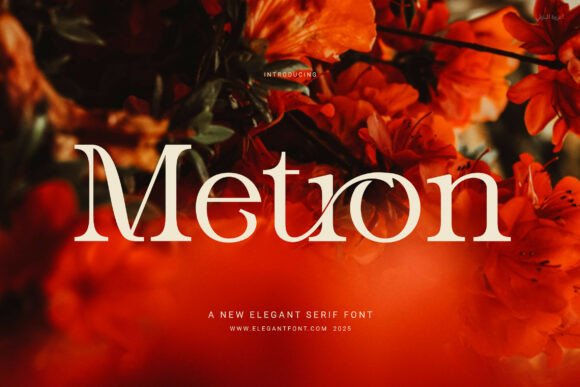
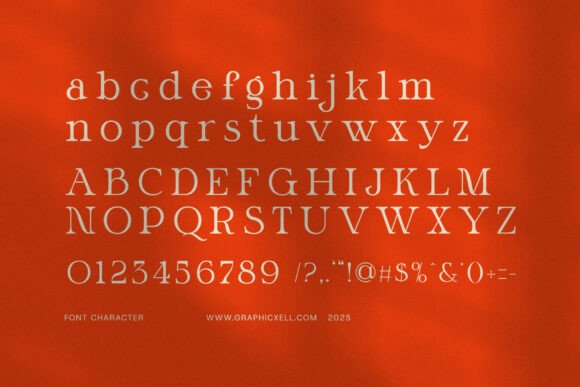
Metron is technically more of a refined serif than a script font, but I understand why it appears in a logo-focused collection. Sometimes a brand identity needs a calm, structured typeface next to a flowing script, and Metron has that composed editorial quality.
Visually, the letterforms feel measured and polished. The contrast is present without becoming too dramatic, and the counters stay open enough for packaging, labels, and masthead-style layouts. I like fonts like this when a logo needs elegance but not too much decoration.
From a branding perspective, Metron could anchor fashion labels, boutique packaging, editorial brands, or premium product identities. It also pairs naturally with more expressive script fonts because it gives the layout a stable typographic base.
My only caution is that Metron should not be treated like a romantic script. Its strength is structure, not handwritten softness. Use it when the brand needs refinement, balance, and quiet authority.
2. Sylvaris Split Monogram Font
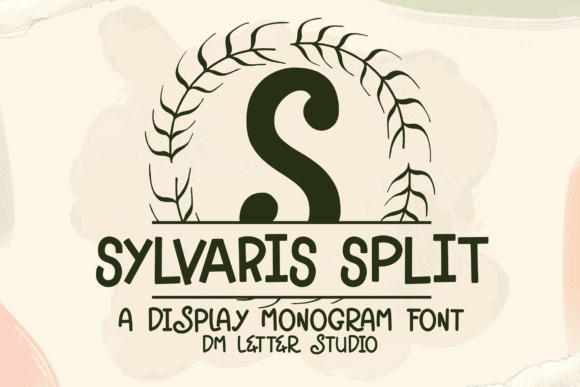
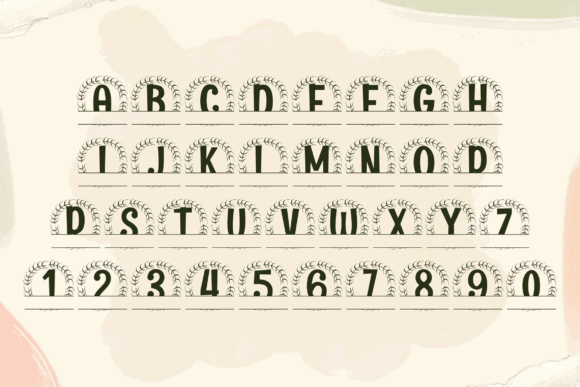
Sylvaris Split Monogram has a decorative monogram personality with a clear personalization angle. The split-letter structure is useful for names, initials, dates, and wedding-style branding where the typography needs to feel custom without drawing everything from scratch.
The botanical details give it a handmade charm, but the main letter skeleton still feels readable. That matters. Decorative monogram fonts can easily become too busy, especially when florals, borders, and initials are all competing inside the same mark.
I would see Sylvaris working for wedding stationery, engraved gifts, boutique packaging, small handmade brands, and personalized products. The split area makes the design practical for names or short text, but I would keep the surrounding layout simple.
This is not the most flexible font in the collection, but for monograms and elegant personalized marks, it has a clear purpose.
3. Wonderful Background Font
Wonderful Background has a friendly handwritten style with a clean monoline feel. It does not try to look overly luxurious, which I actually like. Not every script font needs dramatic swashes and thin hairlines.
The rounded forms make it approachable, casual, and easy to read. That kind of simplicity can be useful for cafés, handmade product labels, children’s goods, planners, packaging stickers, and lifestyle branding.
One thing I often notice with casual handwritten fonts is that they look charming in one-word previews but weaker in real layouts. Wonderful Background seems better suited to short brand names, simple labels, and social graphics rather than complex logo systems.
Pair it with a geometric sans or a clean serif if you want the handwritten voice to feel intentional rather than childish.
4. Modern Hand Flow Font
Modern Hand Flow has the kind of relaxed handwritten movement that many small brands look for when they want a personal logo. The strokes are smooth, the connections are natural, and the overall shape feels friendly without becoming too messy.
The spacing creates a comfortable rhythm, which is important in script fonts for logo work. If the letters crash into each other or create dark spots, the logo quickly starts to feel amateur.
Can script fonts be used for business logos?
Script fonts can work very well for business logos, especially for boutiques, beauty brands, wedding businesses, cafés, photographers, handmade shops, fashion labels, and personal brands. They are less suitable for businesses that need a very technical, corporate, or highly neutral identity. The safest approach is to choose a script font that feels distinctive but still readable, then test it on business cards, labels, websites, and social media before finalizing the logo.